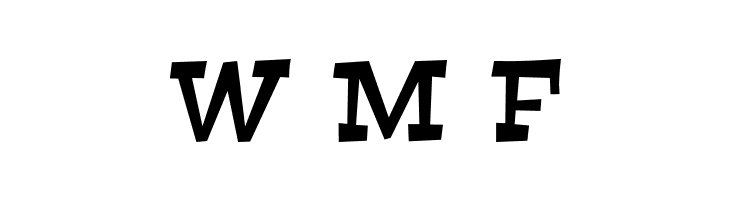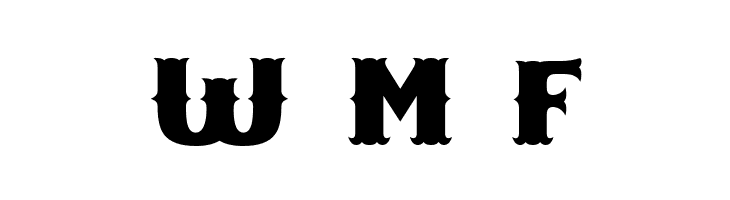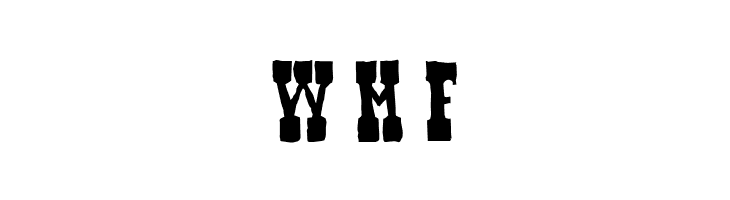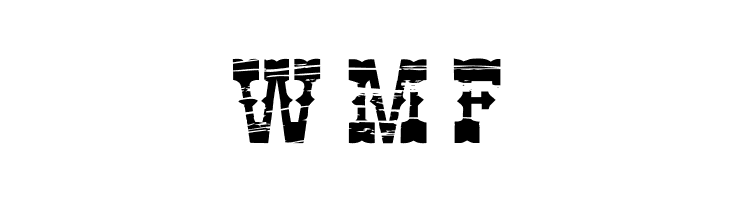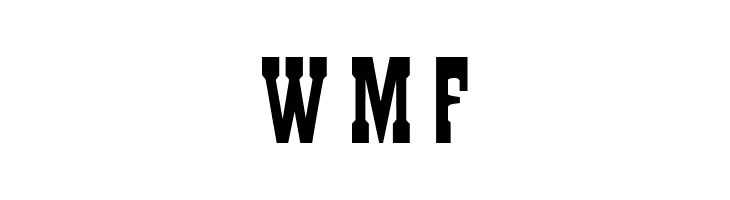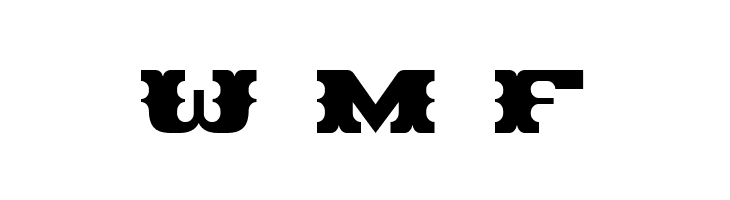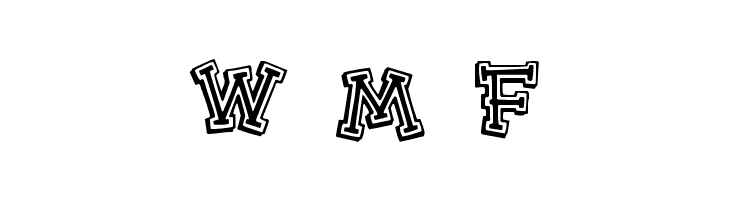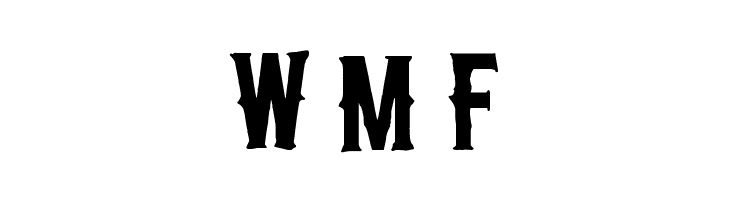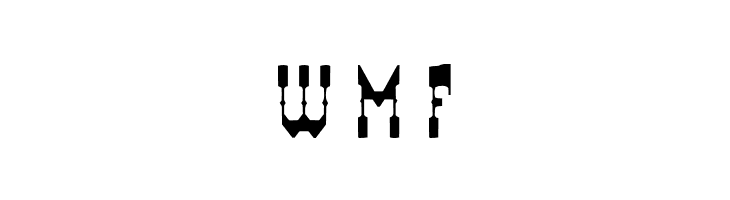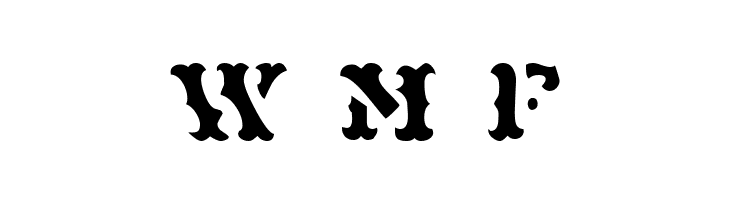
BILLY THE KID-Inverse Font
A bold, Western-inspired slab serif font with high contrast and strong serifs.
BlackHawk Font
A bold, distressed font with a rugged, vintage appearance.
Bleeding Cowboys Font
A decorative, distressed font with elaborate swirls and a grungy appearance.
Bold Pressing H1 demo Font
A bold, three-dimensional vintage-style font with strong, impactful characters.
Boots & Spurs Font
A bold, distressed Western-style font with a vintage, rugged appearance.
Bosox Font
A bold, vintage-style serif font with a classic, collegiate feel.
Bosox Full Font
A bold, decorative font with a vintage, handcrafted look.
Bosox Outline Font
A bold, outlined decorative font with a playful and whimsical style.
Bosox Outline Heavy Font
A bold, outlined font with a vintage, decorative style.
Bosox SemiBold Font
A bold, decorative font with a vintage, three-dimensional style.
Bou Western Font
Bold slab serif font with a Western, vintage style.
Bronco Font
A bold, vintage serif font with a Western flair.
Burris Font
A bold, decorative font with intricate line patterns and a strong, blocky structure.
BurrisGhostTown Font
A bold, textured font with a vintage, Old West style.
BurrisShootout Font
A bold, decorative font with intricate patterns and thick outlines.
Butch & Sundance Bullet Font
A bold, narrow font with sharp serifs and a vintage Western style.
Butch & Sundance Condensed Font
A bold, condensed font with a vintage, western-inspired style.
Butch & Sundance Platinum Regular Font
A bold, Western-inspired font with a unique striped pattern and strong vertical emphasis.
Butch & Sundance Regular Font
A bold, condensed font with a vintage Western style.